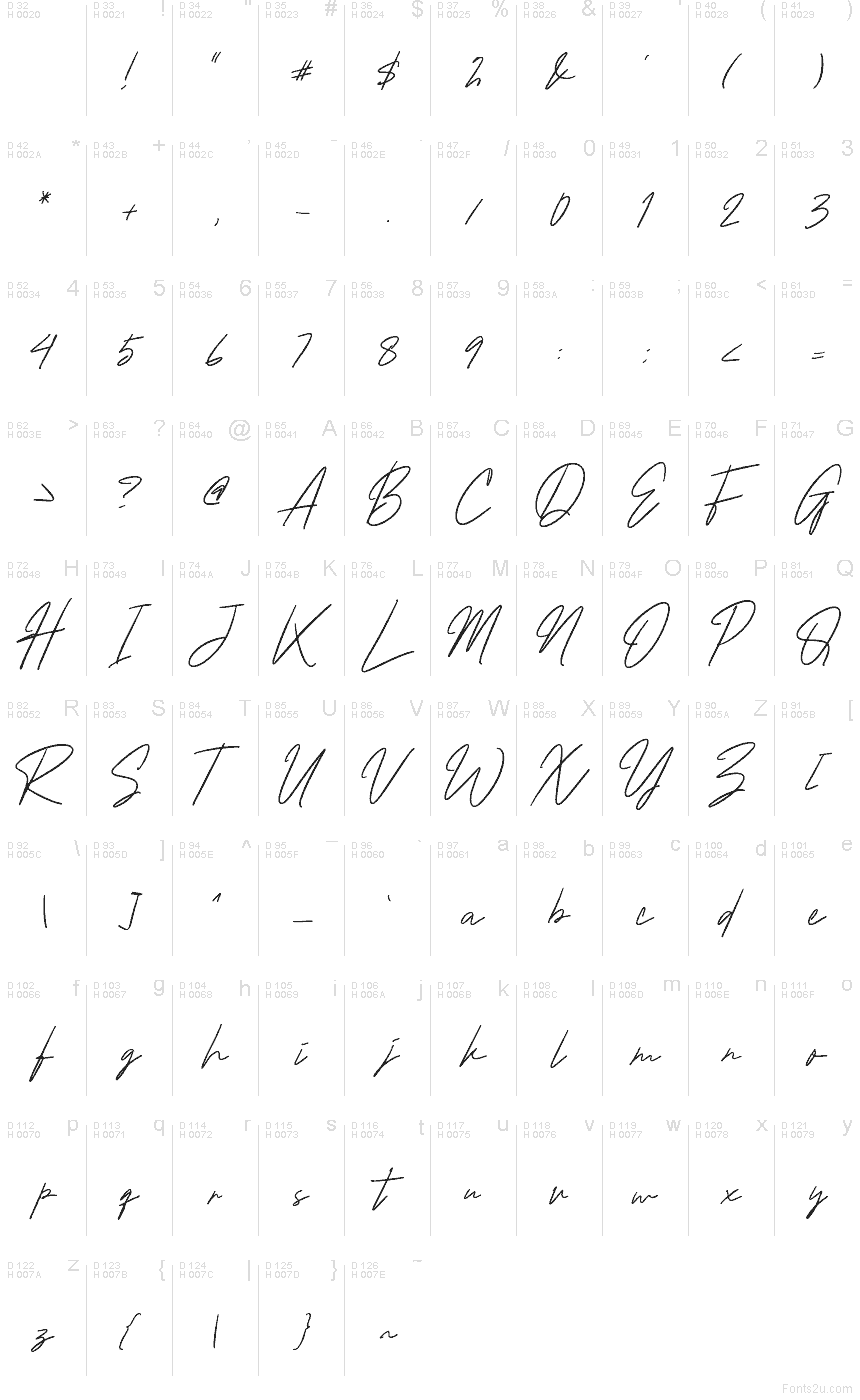
Teather by Pustudio is a free handwritten script font with a loose signature feel. Its letters mix long, sweeping strokes with light, quick connections, so the overall impression is airy and personal rather than carefully formal.
It suits branding, boutique packaging, invitation headings, social media graphics, and magazine cover lines where a free font with a written touch feels more human. Use it for short titles, logo sketches, or monogram-style initials too - those extended strokes give brief words room to move and let the lettering carry the mood on its own.
Teather
Pustudio